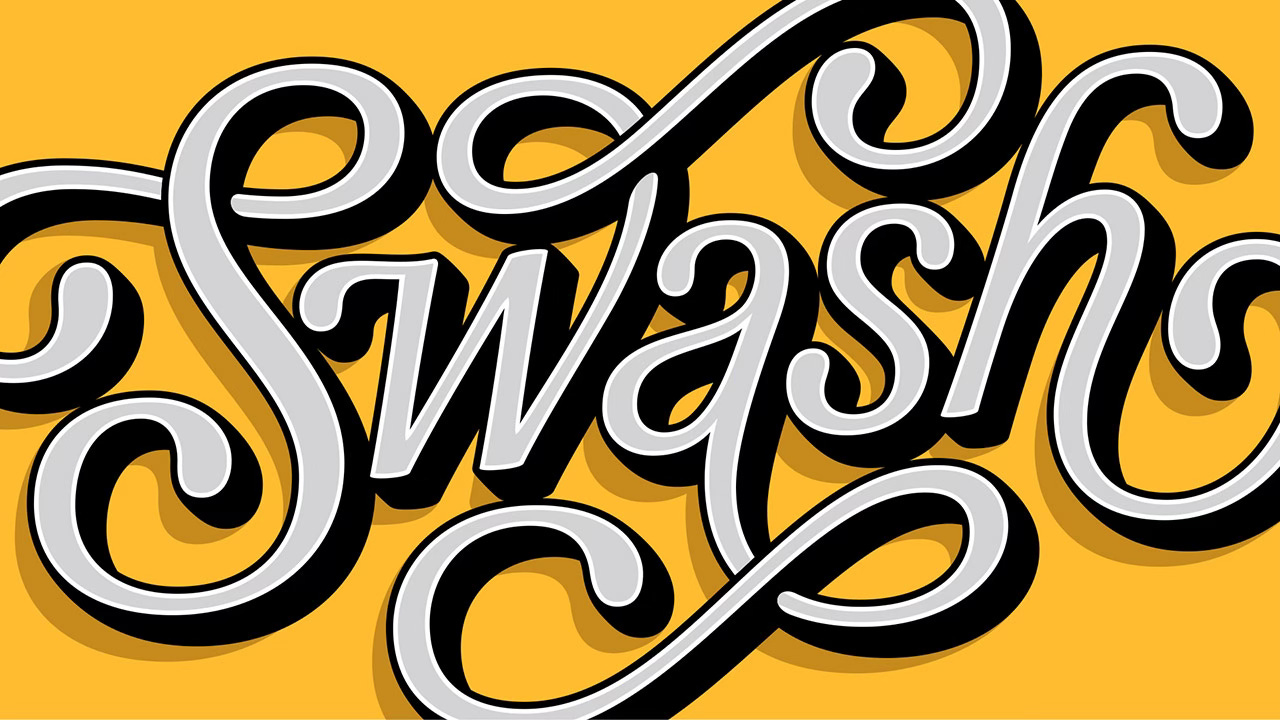
Decorative strokes are just the thing to add a little sizzle to otherwise flavorless serif and sans serif styles. In our online Swash Lettering workshop, we’ll share our favorite design recipes to help you spice up your own letterforms.
In this fun, info-packed class, you’ll pick up strategies for choosing the right letter styles for your projects, spotting ideal departure points for decorative strokes, and shaping ornamental elements to compose spectacular swash lettering layouts.
Find the perfect takeoff points for stunning decorative strokes
Get step-by-step strategies for creating show-stopping swash lettering